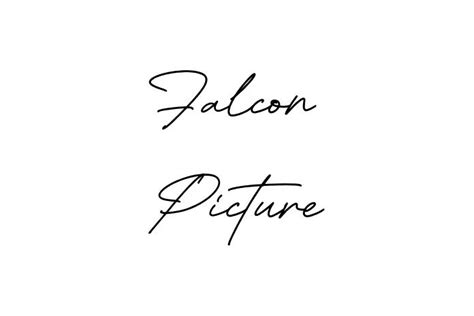
Find The Perfect Falcon Picture Font
Find the Perfect Falcon Picture Font
Hey guys! Ever found yourself needing that perfect font that screams strength , freedom , and maybe just a touch of majesty ? Well, you’ve landed in the right place! Today, we’re diving deep into the world of “falcon picture fonts,” exploring what makes them so captivating and how you can use them to elevate your creative projects. Whether you’re designing a logo, crafting an invitation, or simply looking to add a unique flair to your text, understanding the nuances of falcon-themed fonts can make all the difference. So, buckle up and let’s get started on this exciting fontastic journey!
What Exactly is a Falcon Picture Font?
Okay, so let’s break down what we mean by a “falcon picture font.” It’s not just about a font that looks like a falcon, although that’s definitely part of the appeal. Think of it as a font that embodies the essence of the falcon – its sharp lines, its powerful presence, and its connection to the skies. These fonts often incorporate stylized imagery of falcons, either subtly within the letterforms themselves or as decorative elements that accompany the text. Some might feature wings extending from the letters, while others might use the falcon’s silhouette as a key design motif.
The key here is that a great falcon picture font goes beyond simply slapping a bird on a letter. It’s about capturing the spirit of the falcon and translating that into a visually compelling typeface. This involves careful consideration of line weight, letter spacing, and overall aesthetic. You want a font that’s both visually striking and highly readable, capturing attention without sacrificing clarity. For example, a font used for a bold headline might have sharp, angular lines and a strong, imposing presence. In contrast, a font used for body text might be more subtly themed, with just a hint of falcon imagery to maintain readability. Think about fonts that evoke that feeling. When a falcon soars, there’s an undeniable feeling of freedom and power. These fonts aim to capture that very essence.
Why Choose a Falcon-Themed Font?
Now, you might be wondering, why would I even need a falcon picture font? That’s a fair question! The truth is, these fonts aren’t just for bird enthusiasts (though we certainly welcome you!). They’re incredibly versatile and can add a touch of sophistication and strength to a wide range of projects. If your brand identity is based on strength , vision , or freedom , a falcon picture font can be a fantastic way to visually represent those values. Imagine a law firm using a font with strong, sharp lines that evoke the falcon’s piercing gaze – it instantly communicates authority and precision. Or, picture an outdoor adventure company using a font with stylized wings that suggest freedom and exploration.
The possibilities are truly endless! Falcon-themed fonts can be used to create powerful logos, eye-catching headlines, and memorable branding materials. They’re also a great choice for projects that celebrate nature, aviation, or even historical themes. Think about it: falcons have been symbols of power and nobility for centuries, appearing in heraldry, mythology, and even ancient art. By using a falcon picture font, you’re tapping into this rich history and adding a layer of meaning to your design. It’s not just about aesthetics; it’s about conveying a message and connecting with your audience on a deeper level. When choosing a font, consider the overall message you want to convey. A falcon-themed font can help you project qualities like strength , precision , and freedom , making it a powerful tool for visual communication.
Key Characteristics of Falcon Picture Fonts
Alright, let’s get down to the nitty-gritty and explore the key characteristics that define a great falcon picture font. These fonts aren’t just about slapping a bird image onto a letter; they’re about capturing the essence of the falcon and translating it into a visually compelling typeface. So, what are the elements that contribute to this majestic effect?
Sharp and Angular Lines
First and foremost, you’ll often find that falcon picture fonts feature sharp and angular lines. This is a direct reflection of the falcon’s physical attributes – its powerful beak, its piercing talons, and its streamlined silhouette. These sharp lines convey a sense of precision , strength , and determination . They’re not soft or rounded; they’re assertive and commanding, just like the falcon itself. When you see a font with these characteristics, you immediately get a sense of confidence and authority. Think about how the falcon cuts through the air with its sharp wings – that’s the feeling these lines are meant to evoke. These sharp lines are not just about aesthetics; they also contribute to the font’s readability. Clean, well-defined lines make the letters easy to distinguish, even at smaller sizes. This is especially important for body text, where clarity is paramount.
Incorporating Falcon Imagery
Of course, the most obvious characteristic of a falcon picture font is the incorporation of falcon imagery. But this isn’t just about sticking a bird picture next to the text. A well-designed falcon font will integrate the imagery seamlessly into the letterforms themselves. This could mean using the falcon’s wings as part of the letter’s ascenders or descenders, or using the falcon’s silhouette to create the overall shape of the letter. The key is subtlety and integration. You want the falcon imagery to be present, but not overwhelming. It should enhance the font’s character without sacrificing readability. For instance, imagine a font where the “A” has a subtle wing-like extension, or the “V” resembles a falcon’s beak. These subtle nods to the falcon create a visual connection without being too literal. This integration of imagery is what separates a truly great falcon picture font from a simple novelty font. It requires a skilled designer who can balance the thematic elements with the practical considerations of typography.
Bold and Strong Presence
Falcons are known for their bold and powerful presence, and a good falcon picture font should reflect that. These fonts often have a strong visual weight, making them ideal for headlines, logos, and other prominent design elements. They command attention and exude confidence, making them a great choice for projects that need to make a statement. Think about how the falcon soars high in the sky, a symbol of freedom and dominance. A falcon font should capture that same sense of power and authority. This strong presence is often achieved through a combination of thick strokes, bold letterforms, and a strong visual hierarchy. The letters should be well-proportioned and balanced, creating a sense of stability and strength. A font with a bold presence can make a significant impact on your overall design. It can help you create a strong visual identity and convey a sense of confidence and authority to your audience.
Where to Find Amazing Falcon Picture Fonts
So, you’re sold on the idea of using a falcon picture font, but where do you actually find these typographic treasures? Don’t worry, guys, I’ve got you covered! The internet is a vast and wonderful place, teeming with font foundries and online marketplaces just waiting to be explored. Let’s dive into some of the best resources for finding that perfect falcon-themed font.
Conclusion
So there you have it, guys! A deep dive into the captivating world of falcon picture fonts. We’ve explored what makes these fonts so special, where to find them, and how to use them effectively. Whether you’re designing a logo, crafting a headline, or simply looking to add a touch of strength and majesty to your text, a falcon-themed font can be a powerful tool in your design arsenal. Just remember to choose wisely, pair thoughtfully, and don’t be afraid to experiment. With a little creativity and a keen eye for detail, you can harness the power of the falcon and create designs that truly soar! Now go out there and create something amazing!